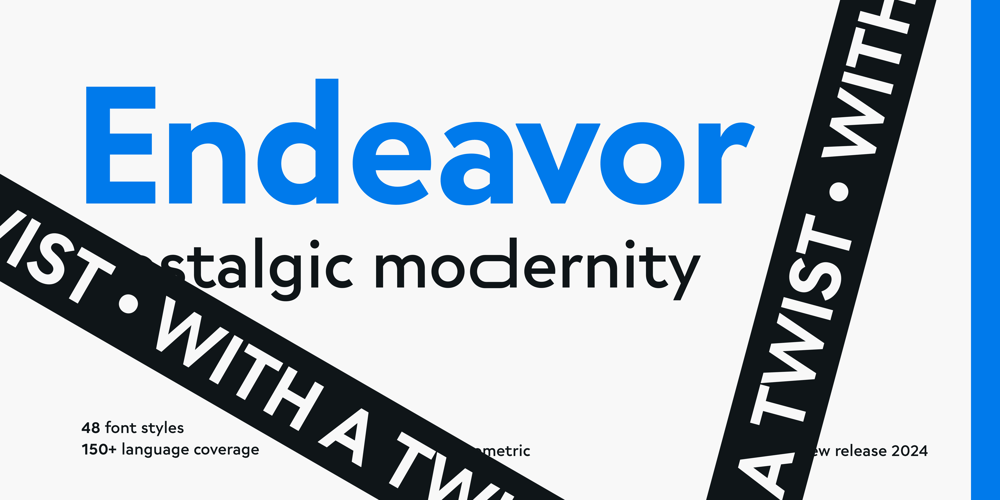
Endeavor
Endeavor font
Endeavor Font Family was designed by Lucas Tillian and published by Lucas Tillian. Endeavor contains 48 styles and family package options. Endeavor is a sans serif geometric typeface that combines contemporary flexibility with a touch of early 20th-century nostalgia. It features three sub-families, each offering a spectrum of weights ranging from Thin to Black. The unique stretch axis allows for the elongation of glyphs from their central point, enabling designers to create dynamic and visually captivating compositions by selectively stretching specific characters.The typeface is equipped with an extensive array of OpenType features, including alternate glyphs, case-sensitive forms, tabular figures, superior and inferior numerals, fractions, and circled numbers available in both filled and outlined styles. Whether used for branding, editorial design, or digital interfaces, Endeavor offers both versatility and a rich design heritage, making it an invaluable asset for a wide range of creative projects.